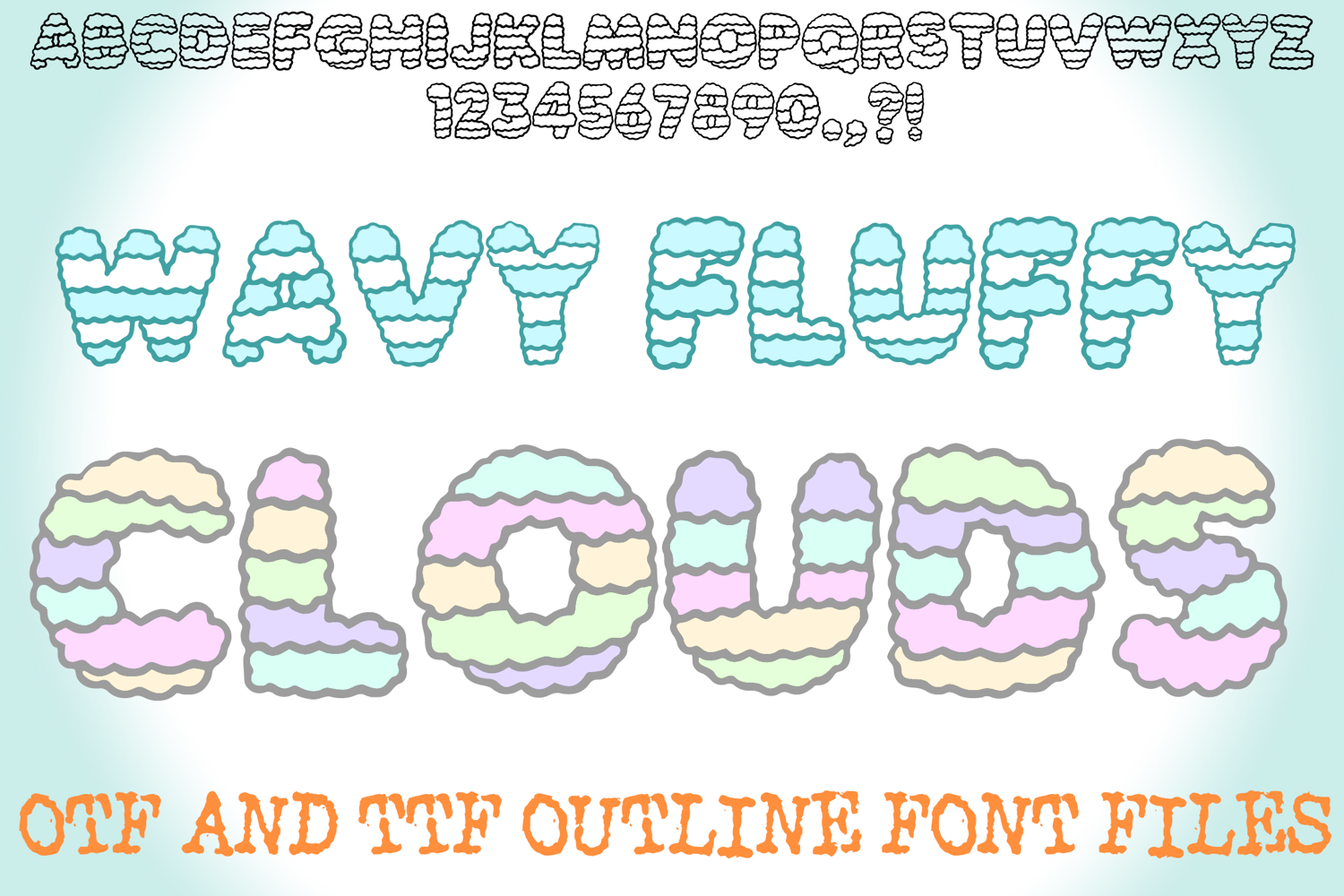
Wavy Fluffy Cloud Cartoon Alphabet Lettering ABC Text Font
Float away with the Wavy Fluffy Cloud Font! This truly unique display typeface brings a soft, rippli…